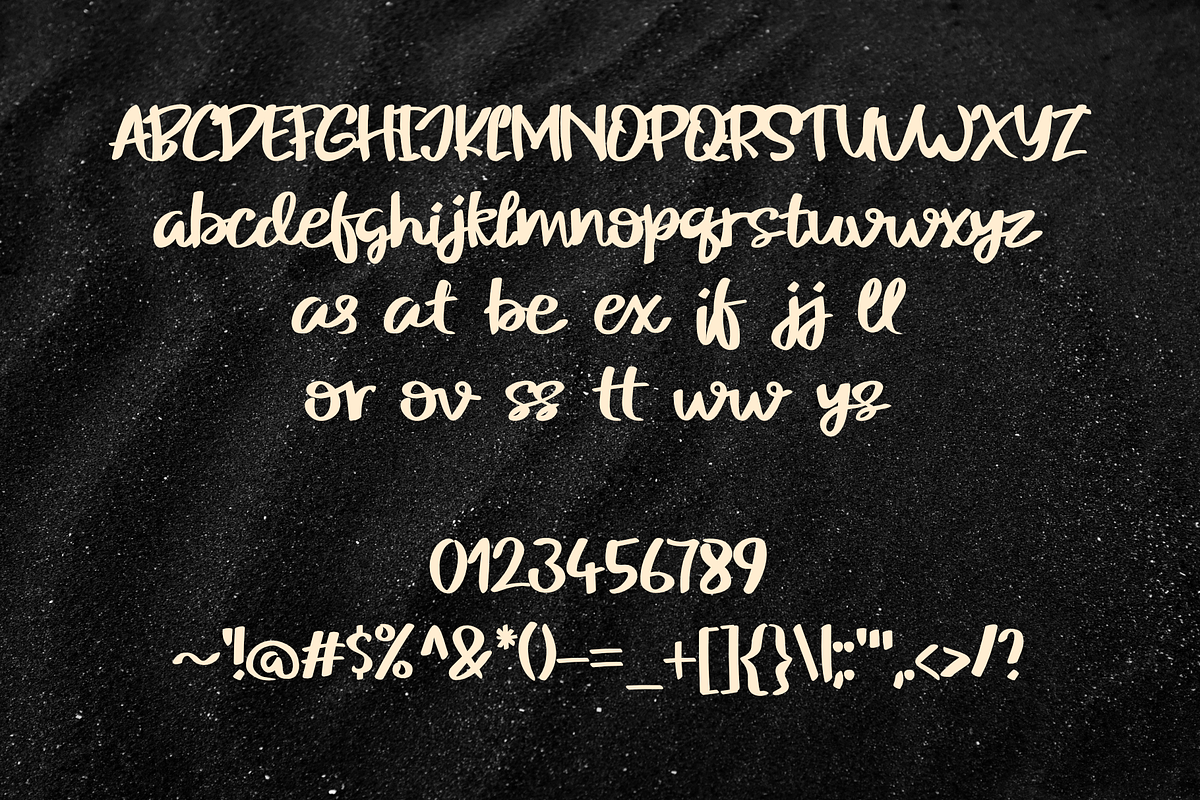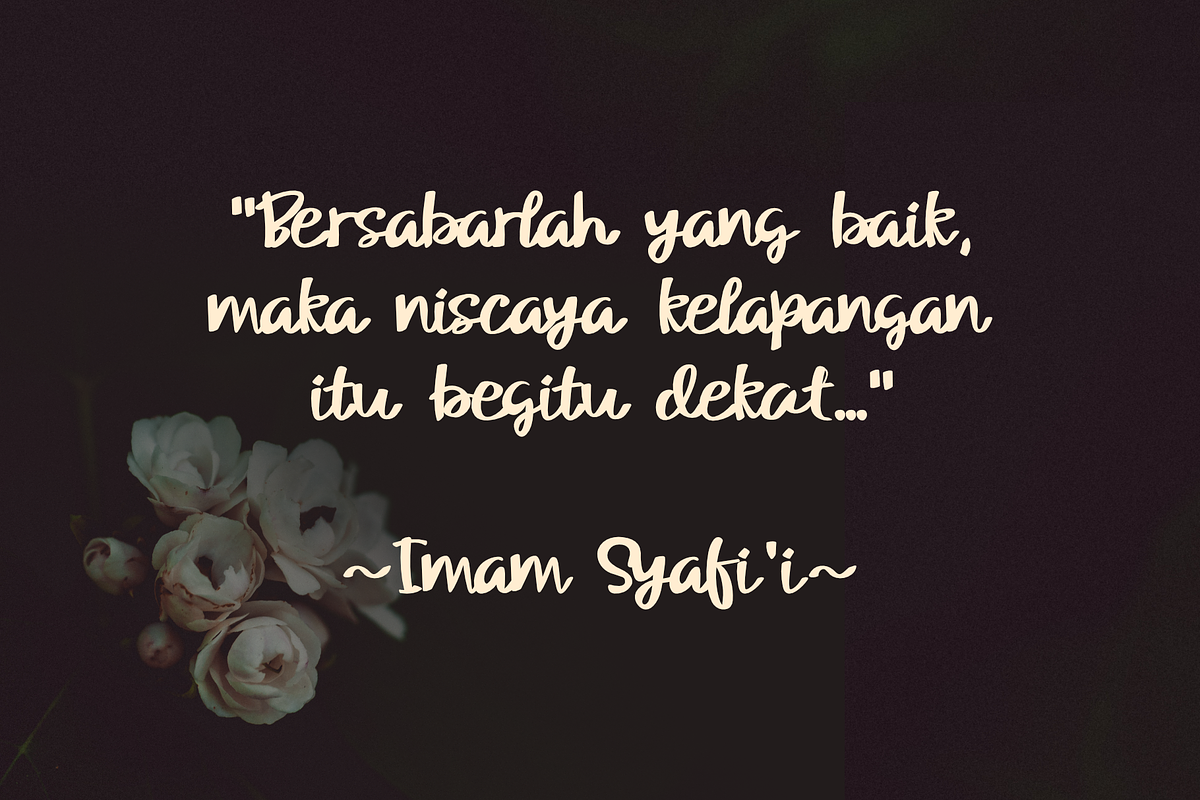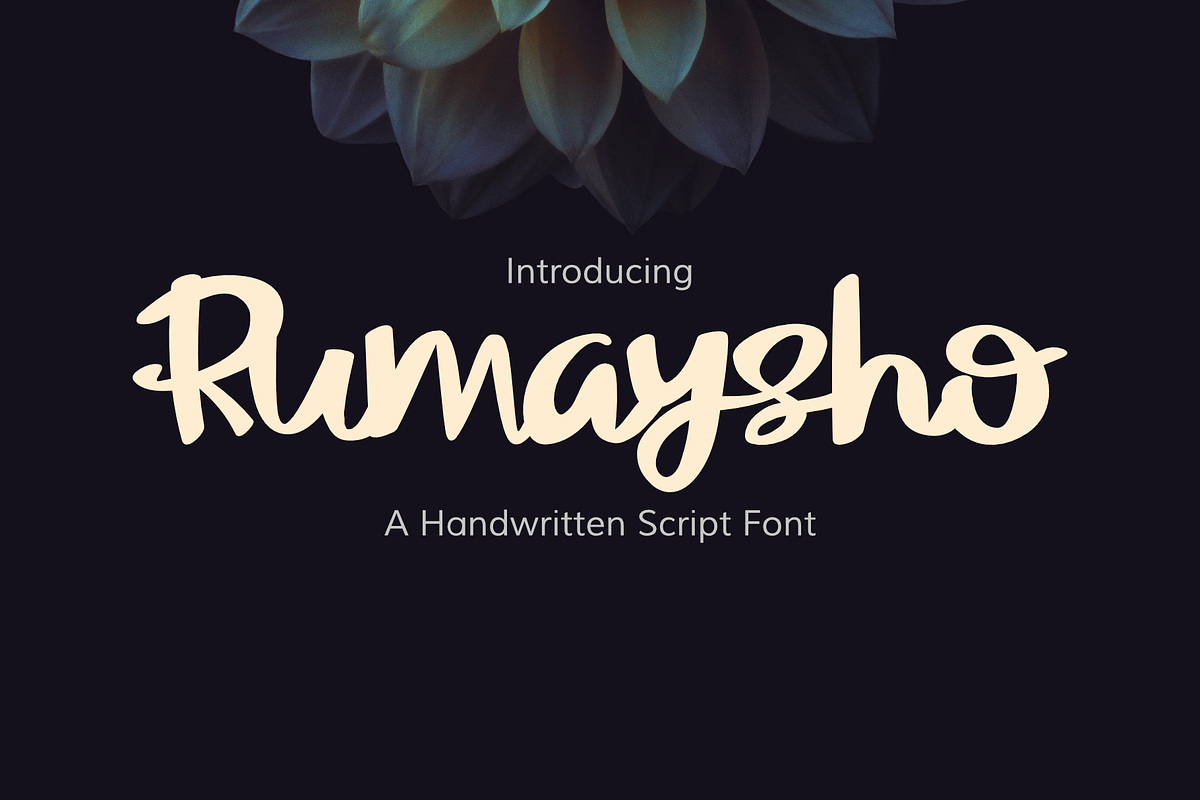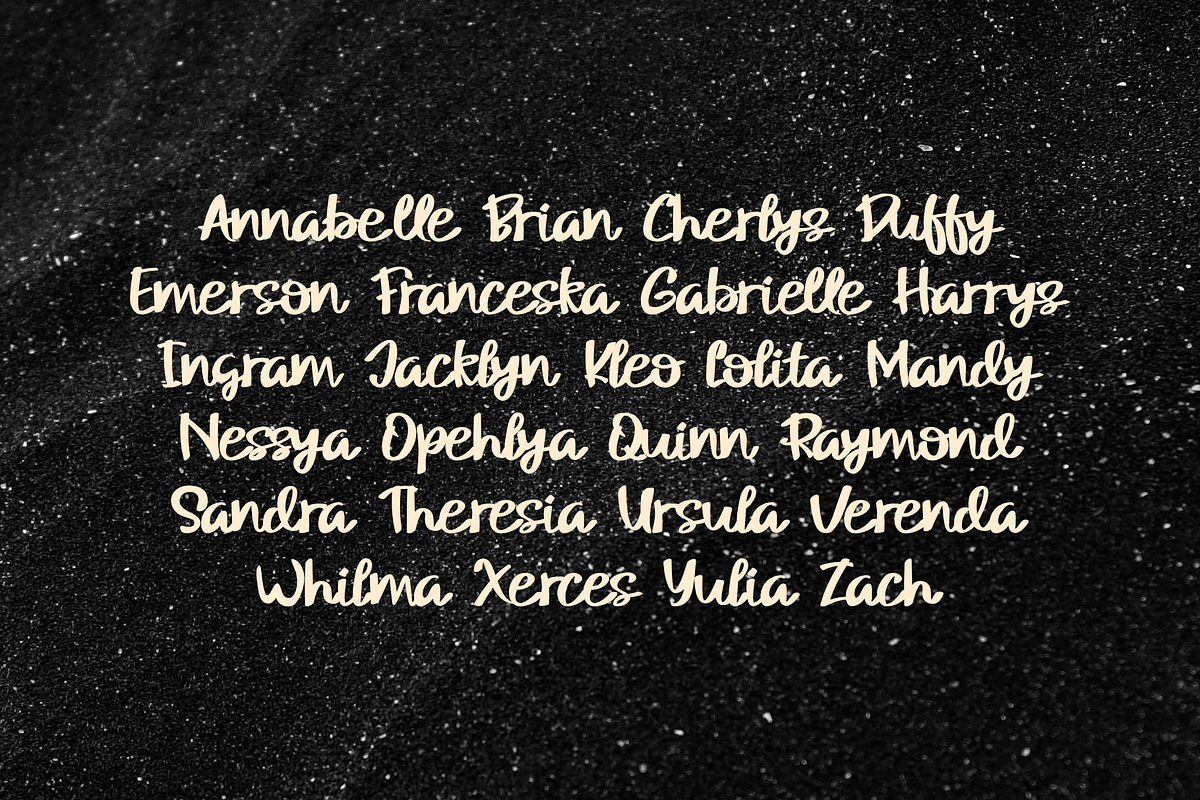
MAYRUSHO
Rumaysho – Casual Handwritten Script Font
Meet Rumaysho, a warm and natural handwritten script font crafted to bring authenticity and personality to your creative projects.
Inspired by everyday handwriting, Rumaysho combines smooth flowing strokes with a relaxed rhythm, creating typography that feels genuine, approachable, and effortless.
Its clean handwritten appearance makes it perfect for inspirational quotes, branding, logos, lifestyle content, social media, book covers, product packaging, invitations, and modern creative projects.
Rumaysho balances readability with handcrafted charm, making long sentences comfortable to read while still providing enough character for eye-catching headlines.
Whether you're designing elegant branding, meaningful quotes, feminine products, Islamic content, or personal stationery, Rumaysho delivers a timeless handwritten touch.
Lowercase
Symbols
Standard Ligatures
OpenType Features
Natural Handwritten Style
Smooth Connections
High Readability
Rumaysho is a casual handwritten script font designed for creators who want typography that feels warm, personal, and authentic. Whether you're creating inspirational quotes, elegant branding, lifestyle products, book covers, Islamic content, or social media graphics, Rumaysho adds a natural handwritten touch that is both expressive and easy to read.